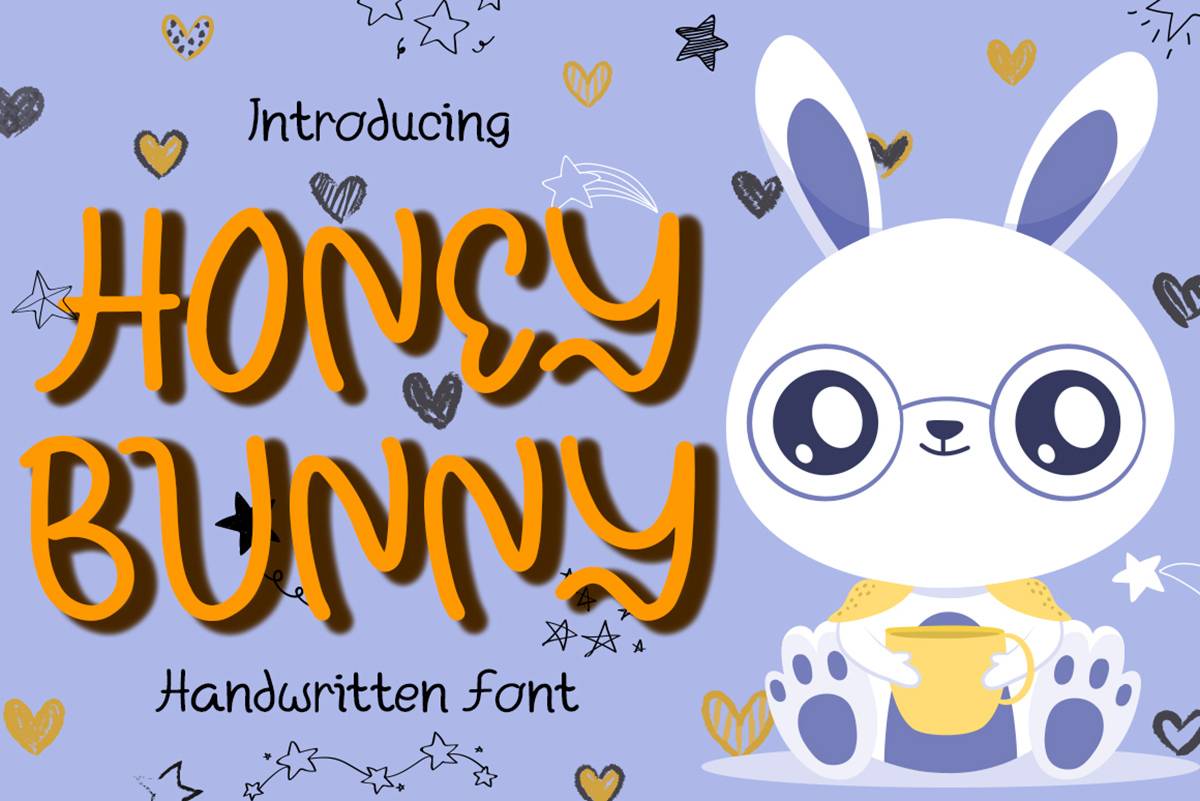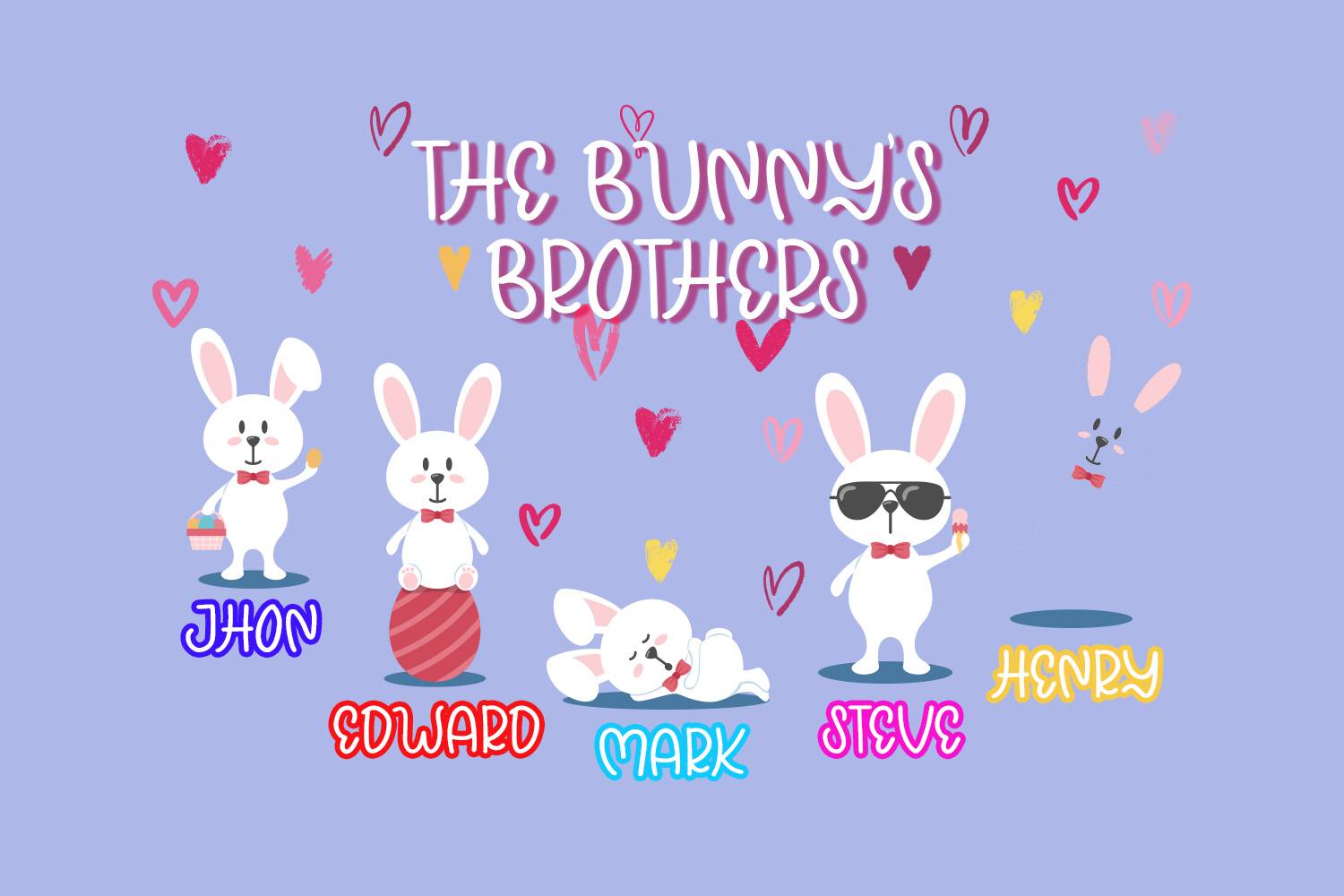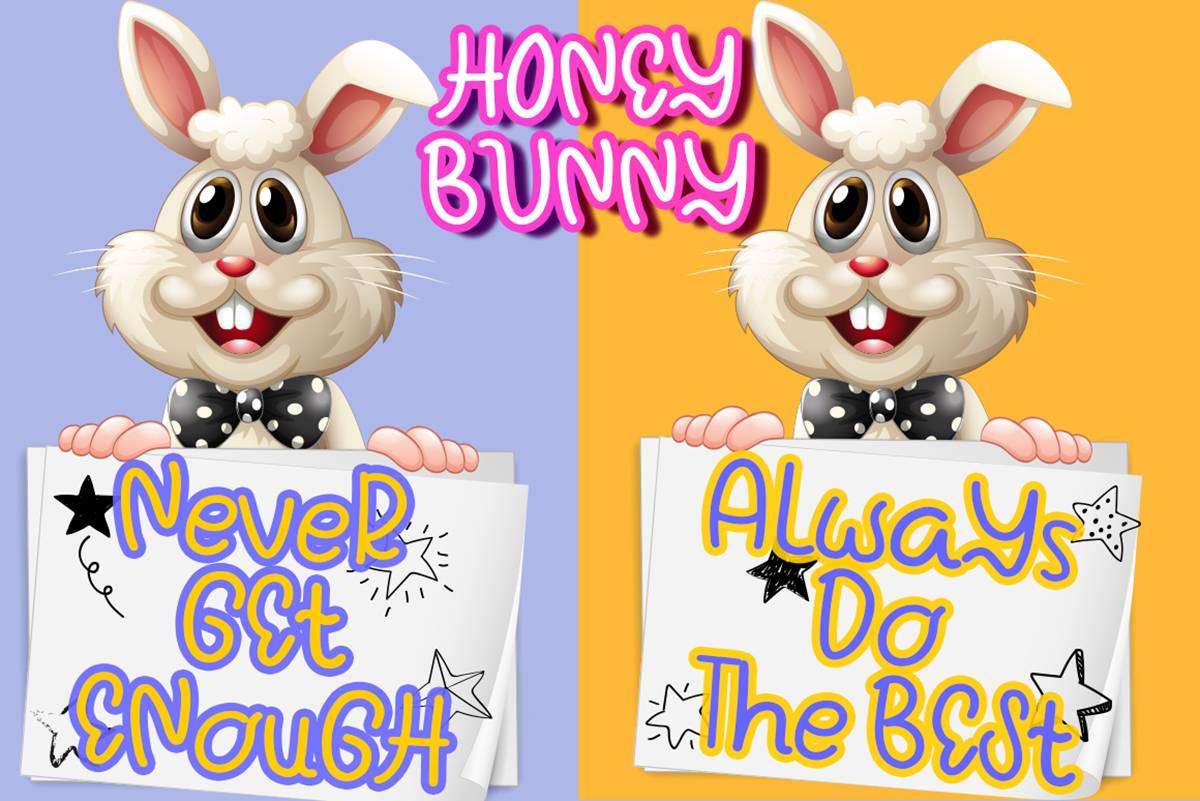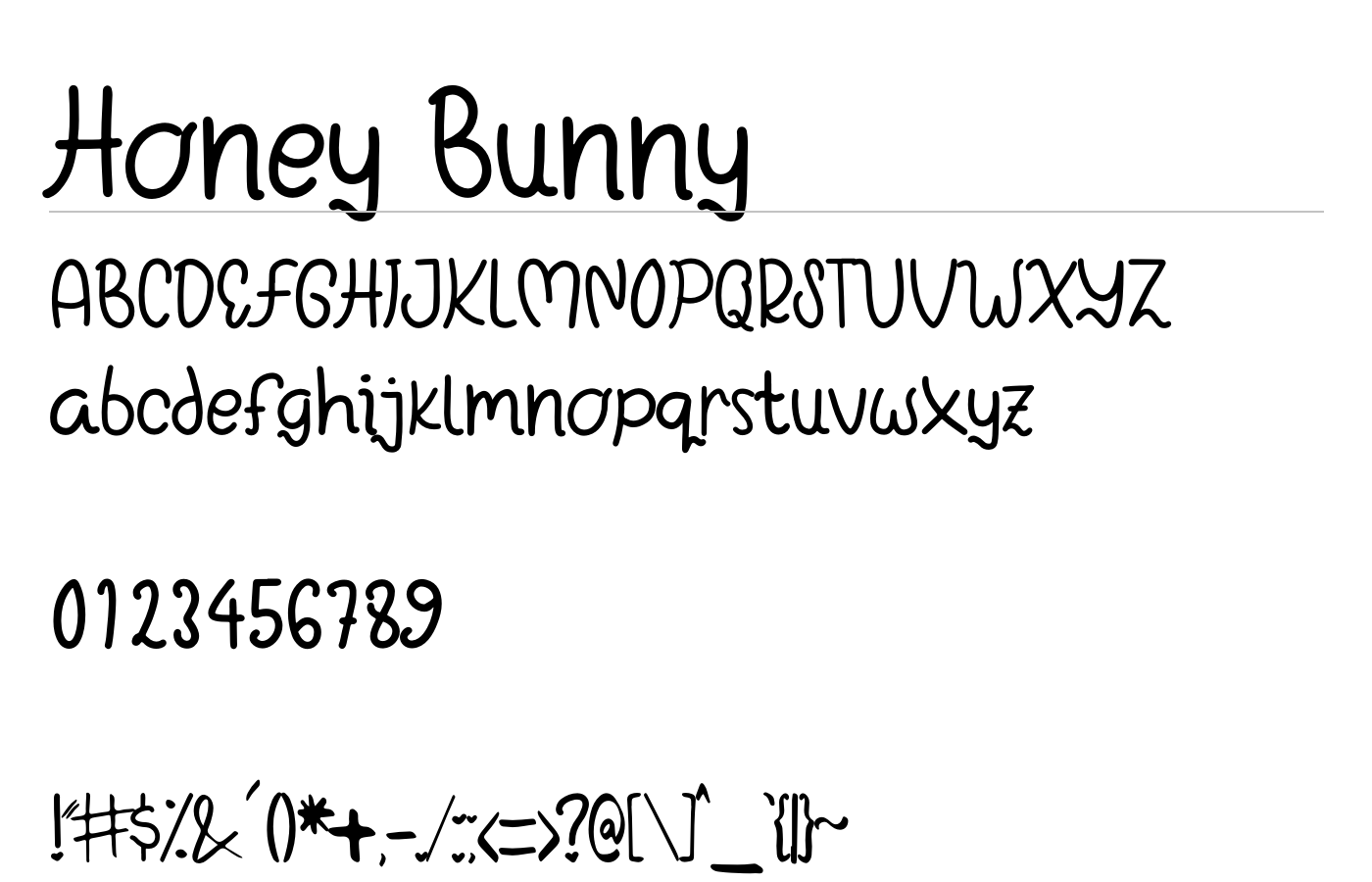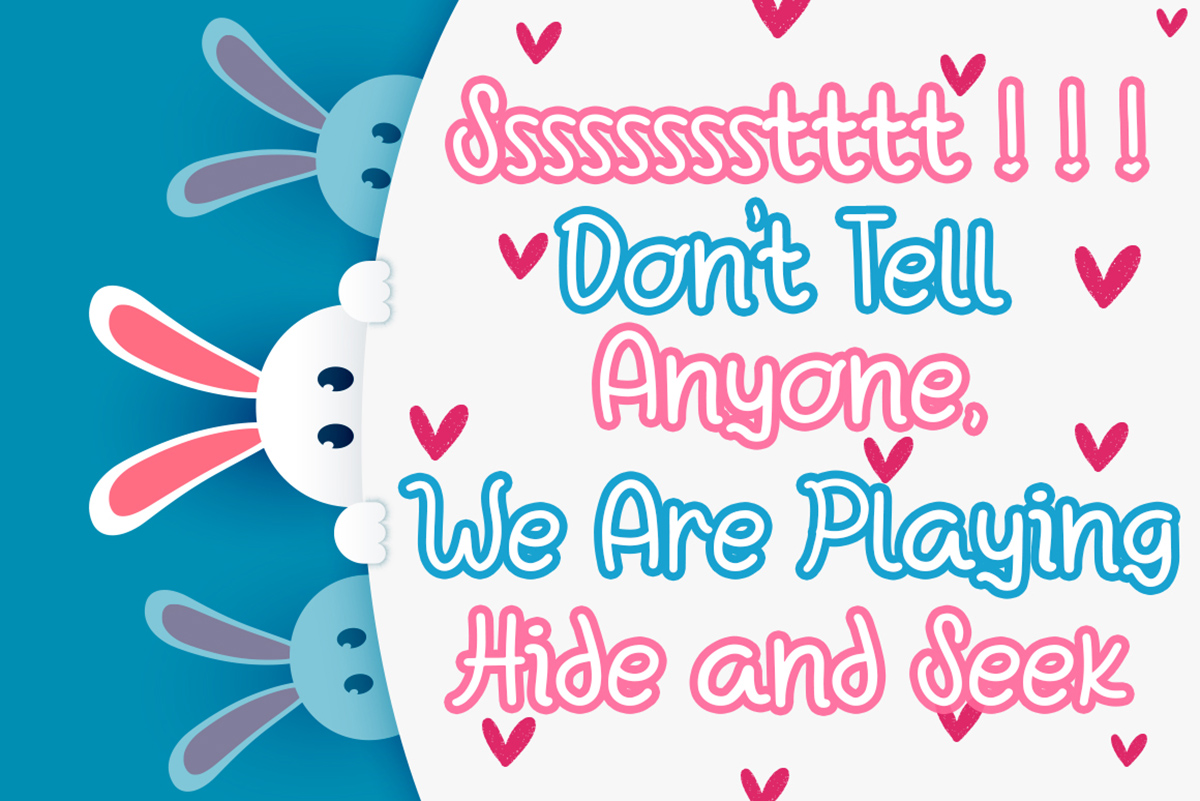
Honey Bunny is a playful and casual handwritten font with a light, slightly uneven stroke that mimics natural penmanship. Its tall x-height and quirky letterforms give it a friendly, approachable vibe, making it ideal for informal designs such as children’s books, greeting cards, and fun branding projects. This font works well where a personal, warm touch is desired, especially in logos, invitations, and creative packaging.
Honey Bunny Font
About Honey Bunny Font